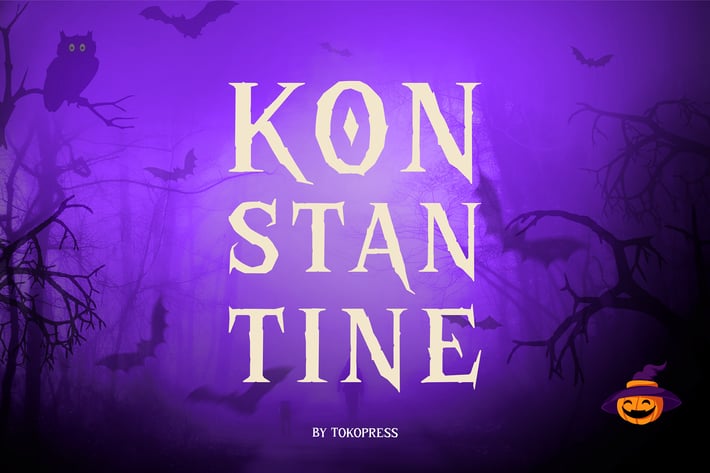
Horror Font - Konstantine
Konstantine - Playful Halloween
KONSTANTINE is a Halloween-themed display font designed to capture the joyful fright of spooky nights. Featuring exaggerated serifs, slightly uneven curves, and playful proportions, this font blends comic-style whimsy with haunted house energy. Its bold, animated shapes make it the perfect go-to for Halloween branding, trick-or-treat invites, horror storybooks, and ghoulish merchandise.
KONSTANTINE thrives in Halloween party campaigns, scary game logos, kids’ costume labels, and eerie classroom decorations. Whether you’re designing a witchy sale banner or a chilling comic cover, this typeface helps your message pop with fright and fun. It’s spooky without being scary—just the right balance for both kids and adults.
Key Features :
Playfully Creepy Aesthetic
• Wavy baselines and exaggerated vertical tension
• Friendly horror vibe—great for humorous fear or cartoon scares
• Perfect balance between gothic and goofy letterforms
For Creators of Seasonal and Spooky Visuals
• Works beautifully on flyers, posters, packaging, merch, and YouTube thumbnails
• Perfect for Halloween themes, haunted events, and spooky digital experiences
• Bold enough for titles, readable enough for short phrases